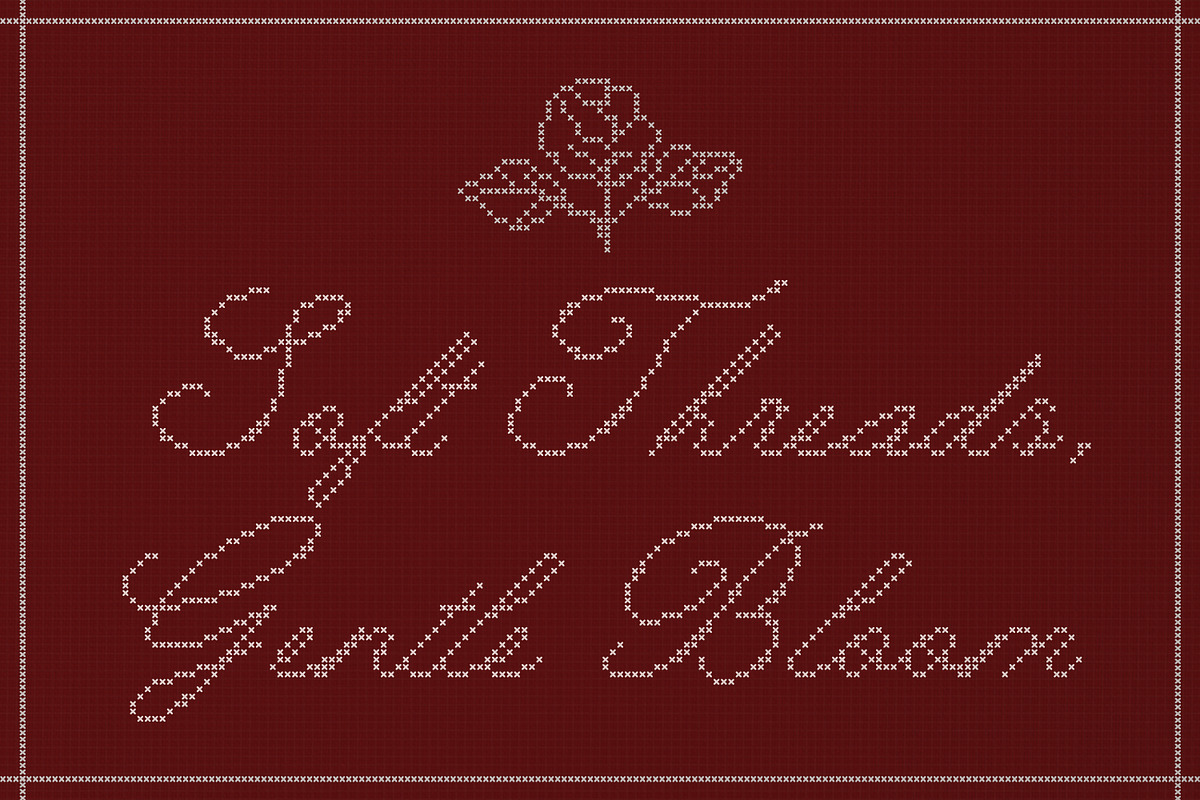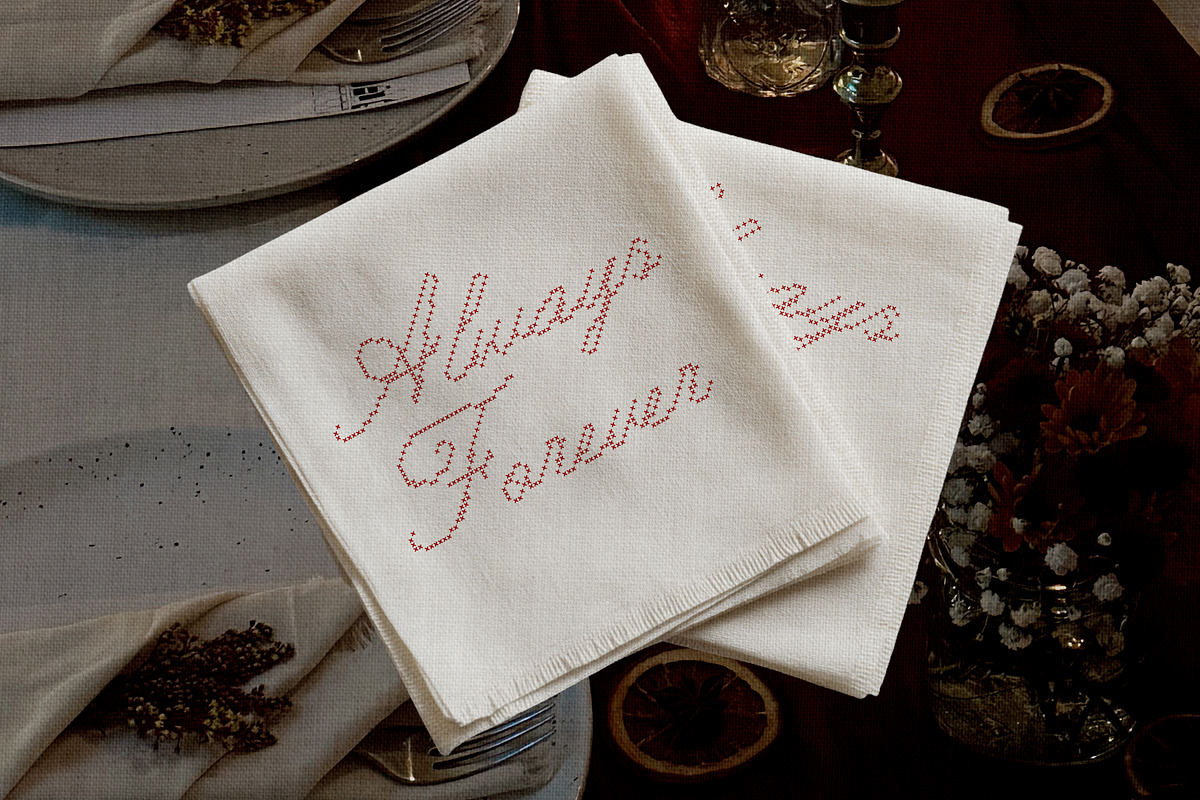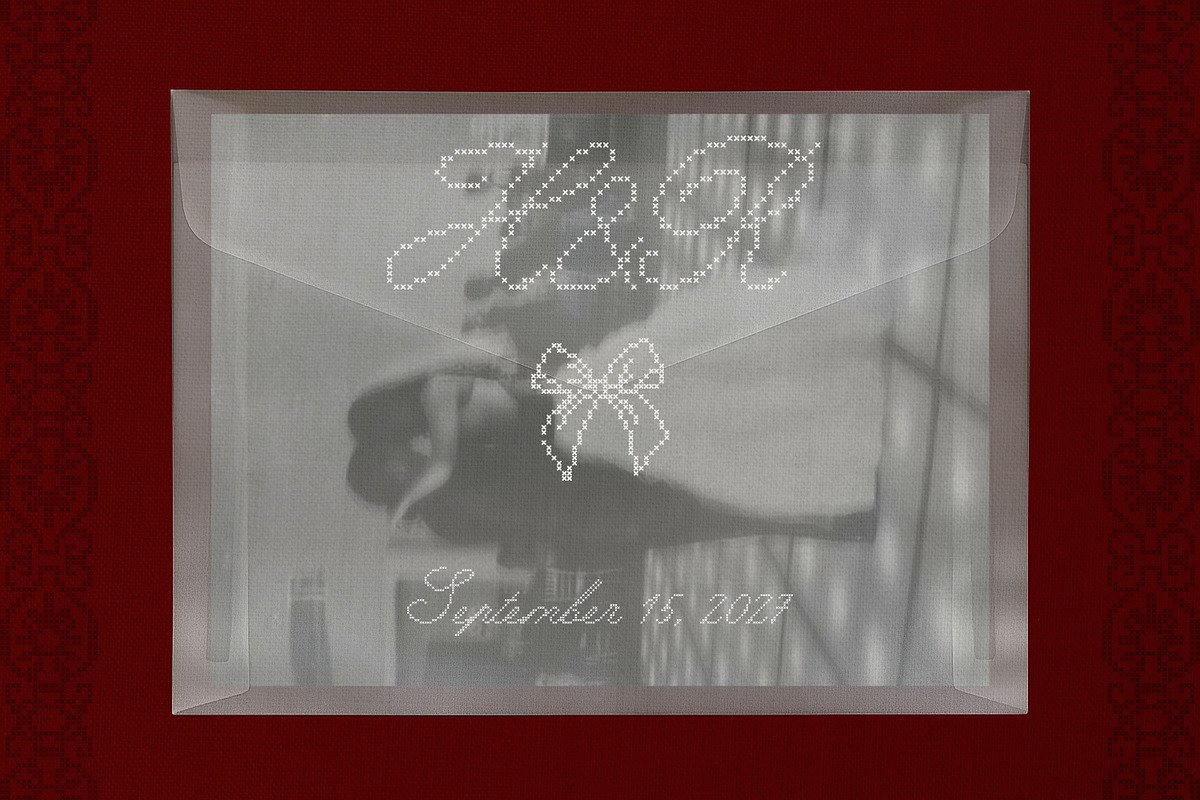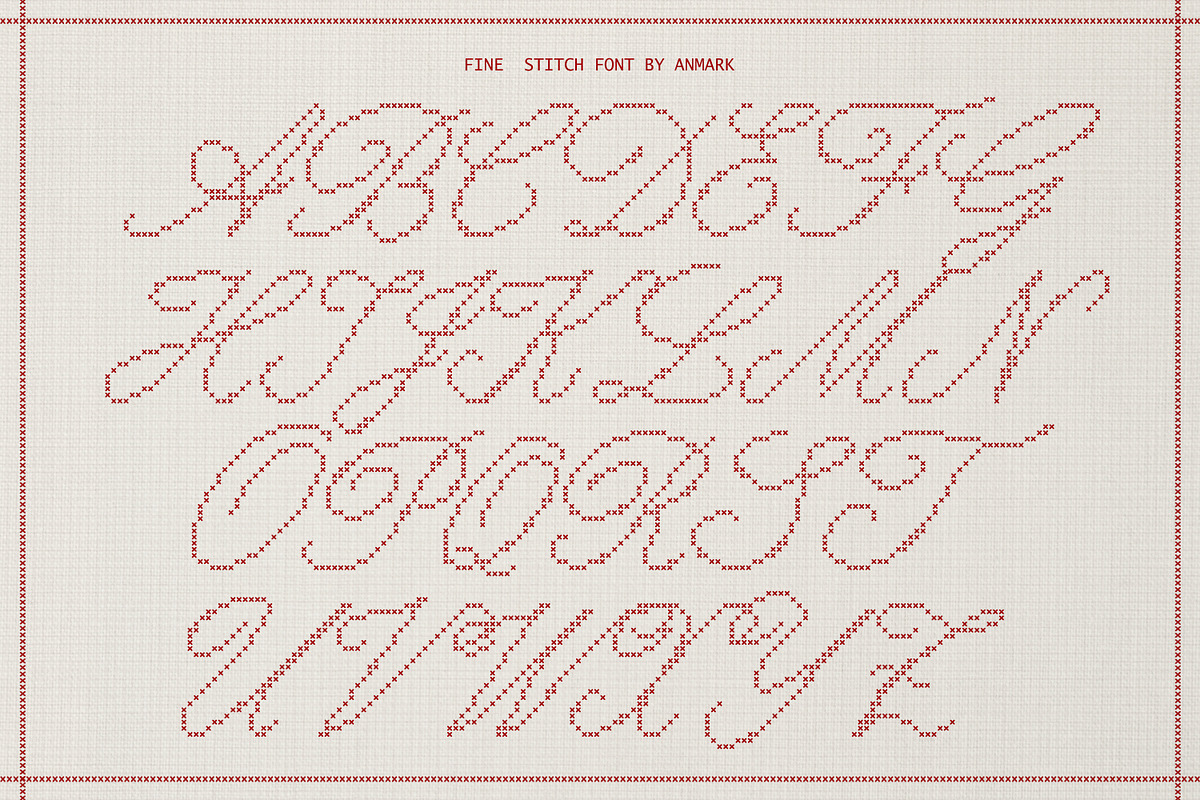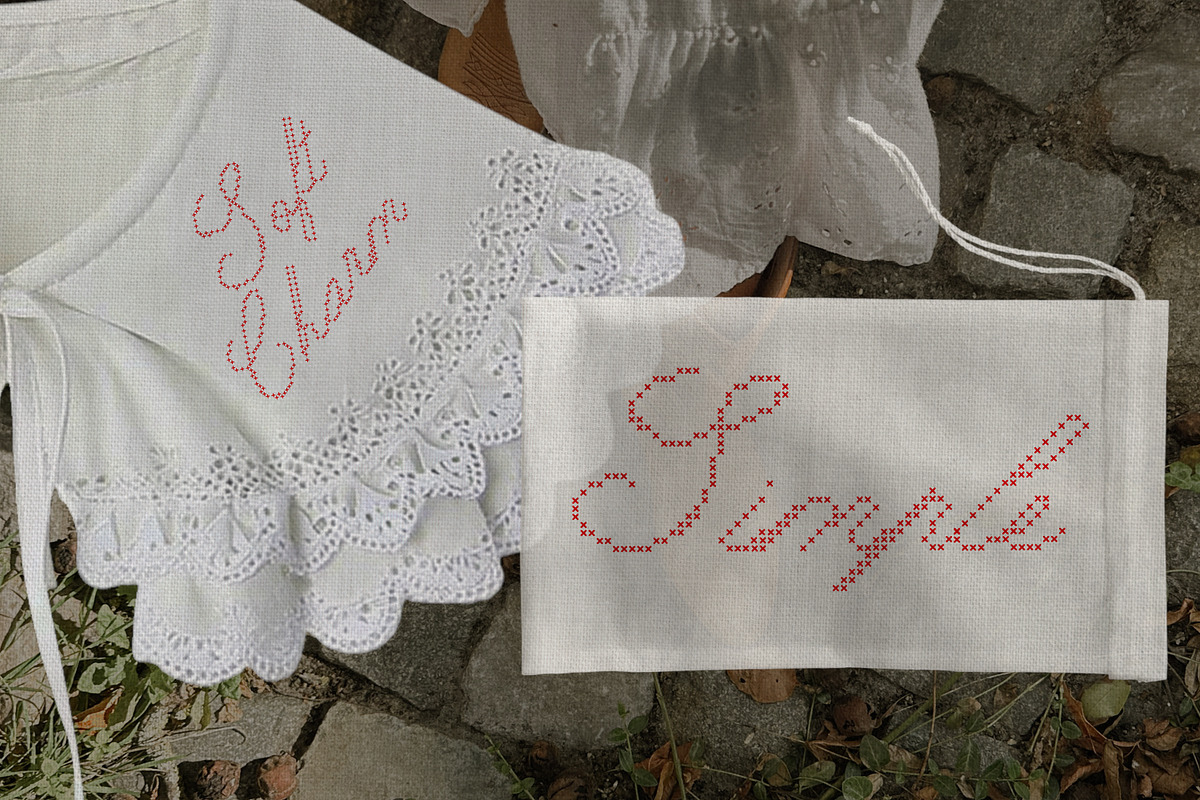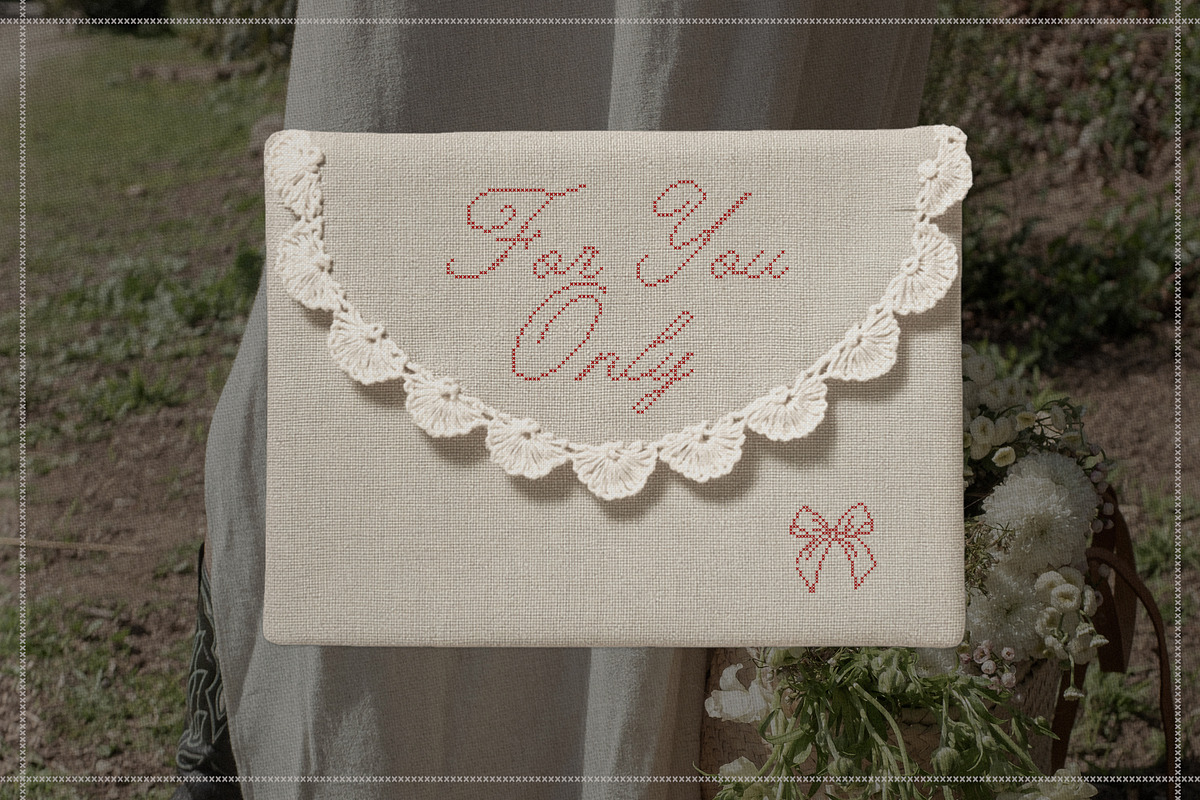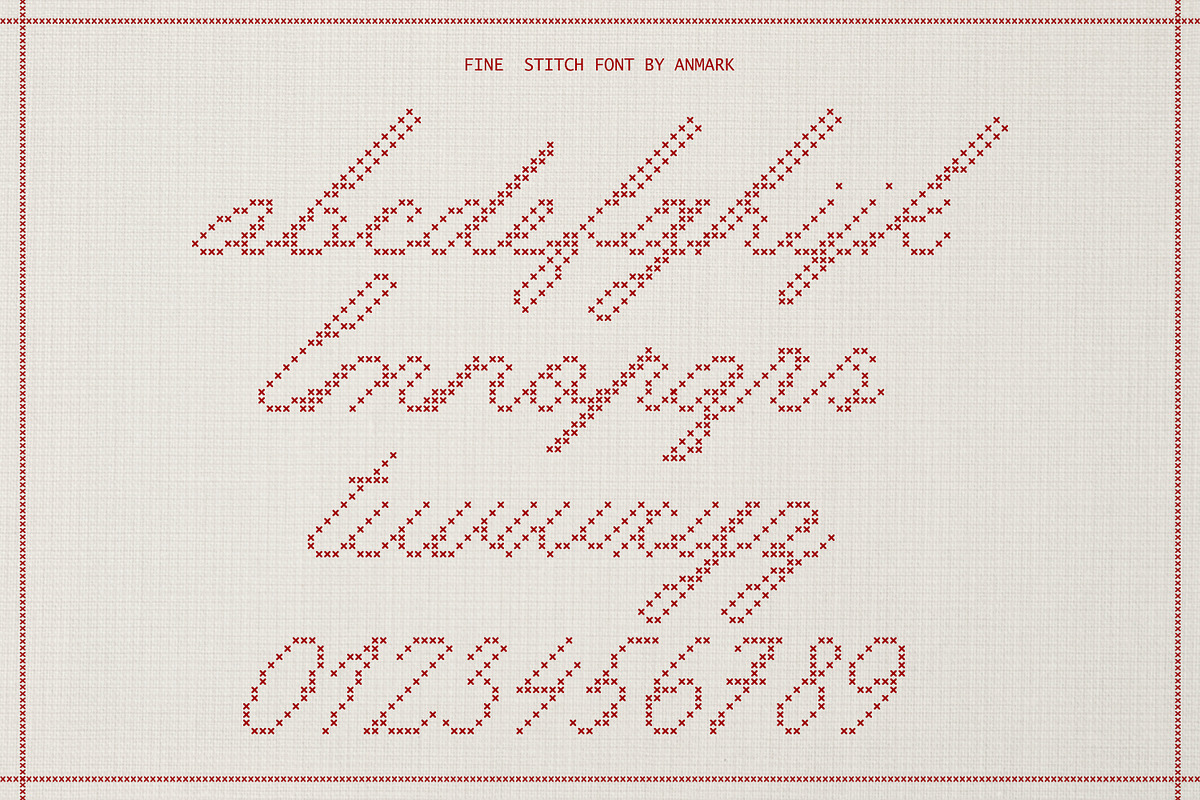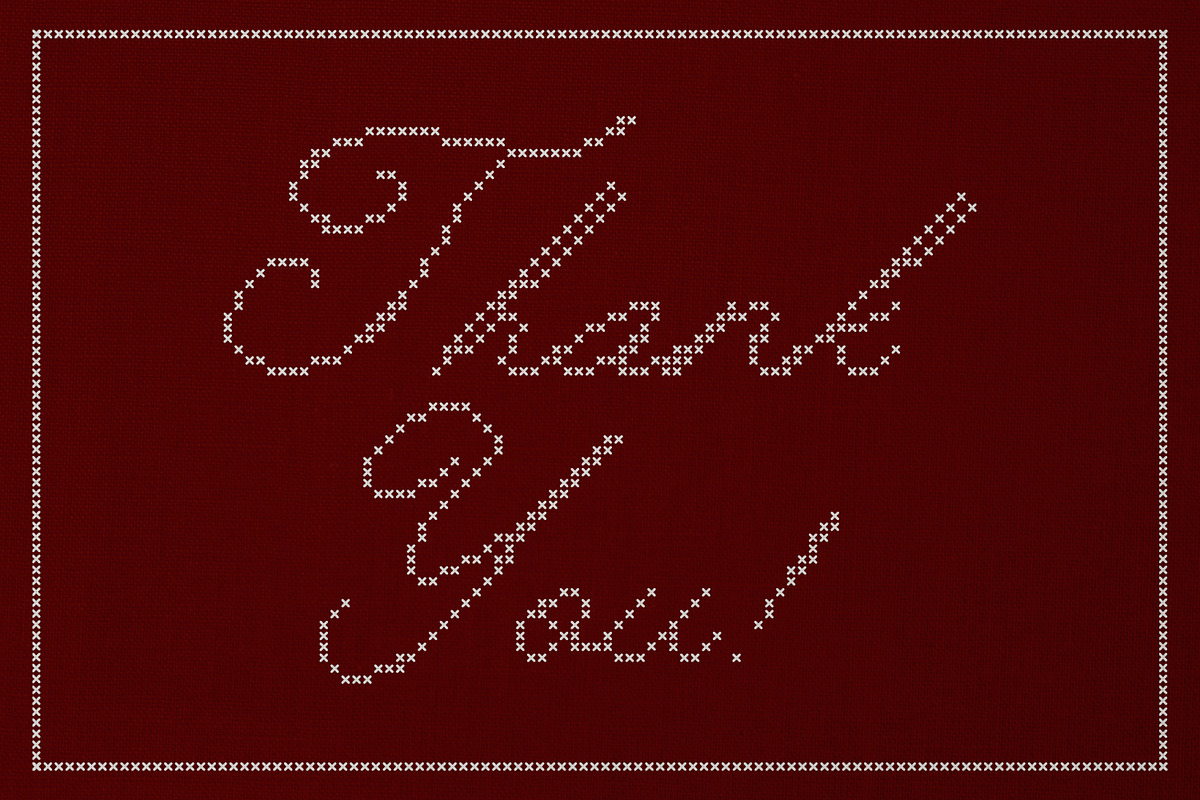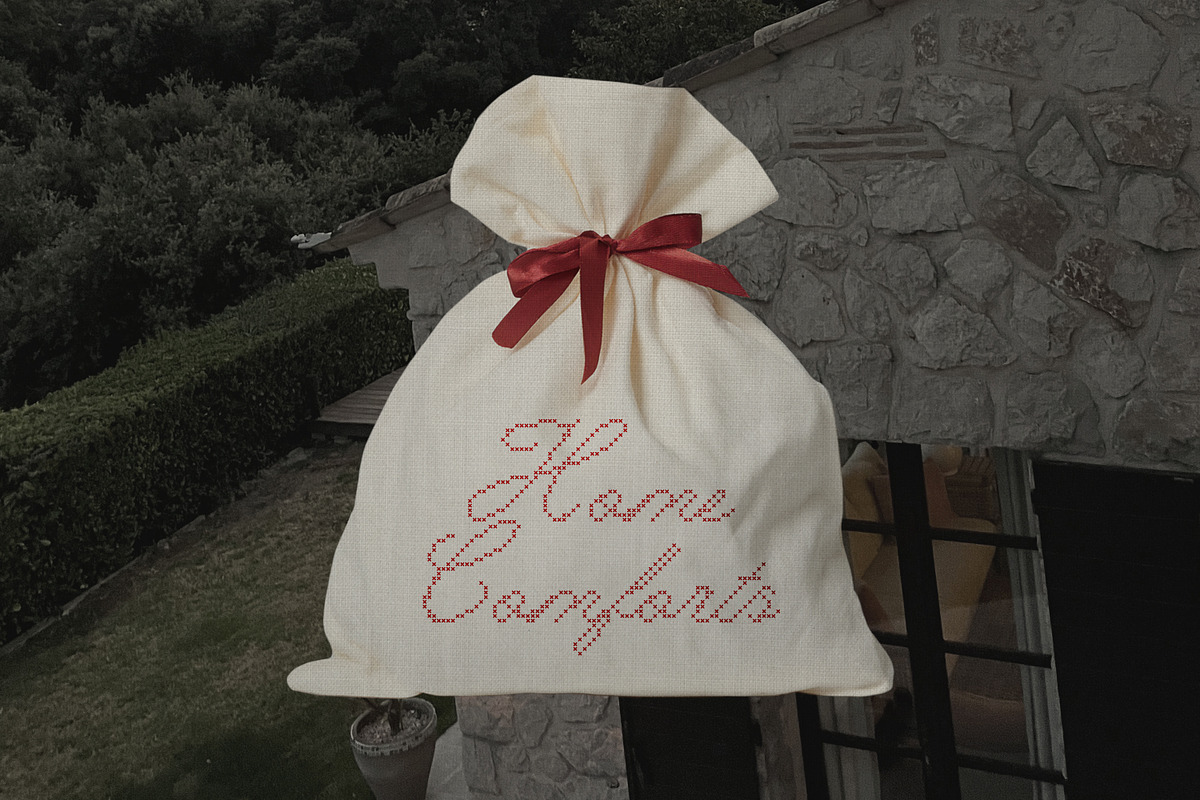
Fine Stitch is an embroidered calligraphy script inspired by the quiet beauty of traditional needlework. Each stroke reflects the rhythm of hand stitching, where patience, precision, and care transform simple thread into something lasting and meaningful. The texture carries a gentle handcrafted character, reminiscent of heirloom linens, vintage monograms, and delicate embroidery passed from one generation to the next.
This typeface draws from heritage craft traditions and the timeless elegance of handmade detail. It echoes the softness of stitched initials on treasured keepsakes, the refinement of classic textile ornament, and the romance of objects created to be preserved and remembered. The result is lettering that feels intimate, tactile, and quietly refined.
Fine Stitch is especially suited for wedding design, from invitations and save the dates to monograms and keepsake stationery. It brings warmth and personality to logo design, boutique branding, and social media visuals, where a handcrafted aesthetic creates a sense of authenticity and care. It also works beautifully for packaging, editorial layouts, beauty branding, and any project that calls for softness, elegance, and a sense of tradition.
Graceful, nostalgic, and thoughtfully detailed, Fine Stitch captures the feeling of something lovingly made and meant to last.